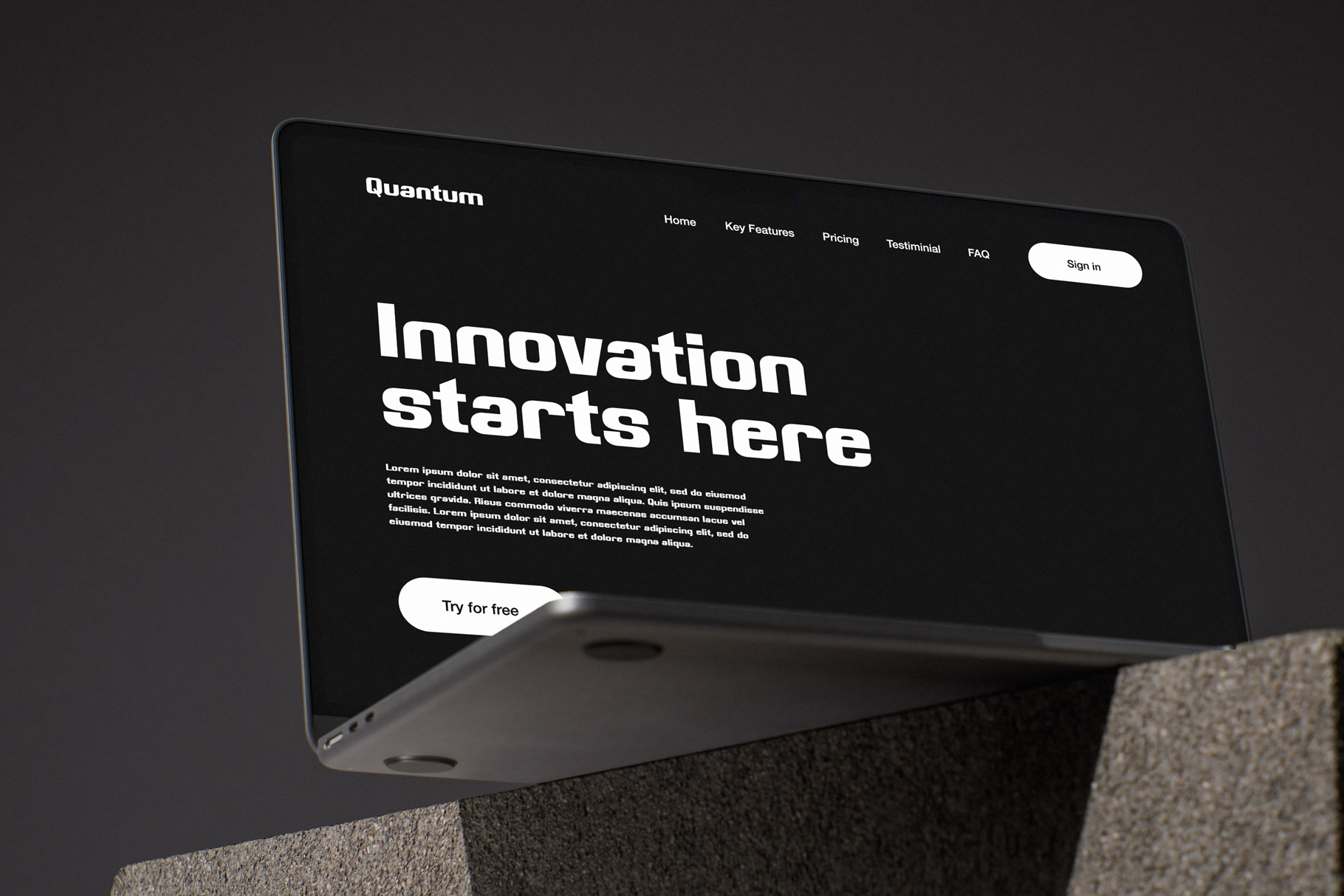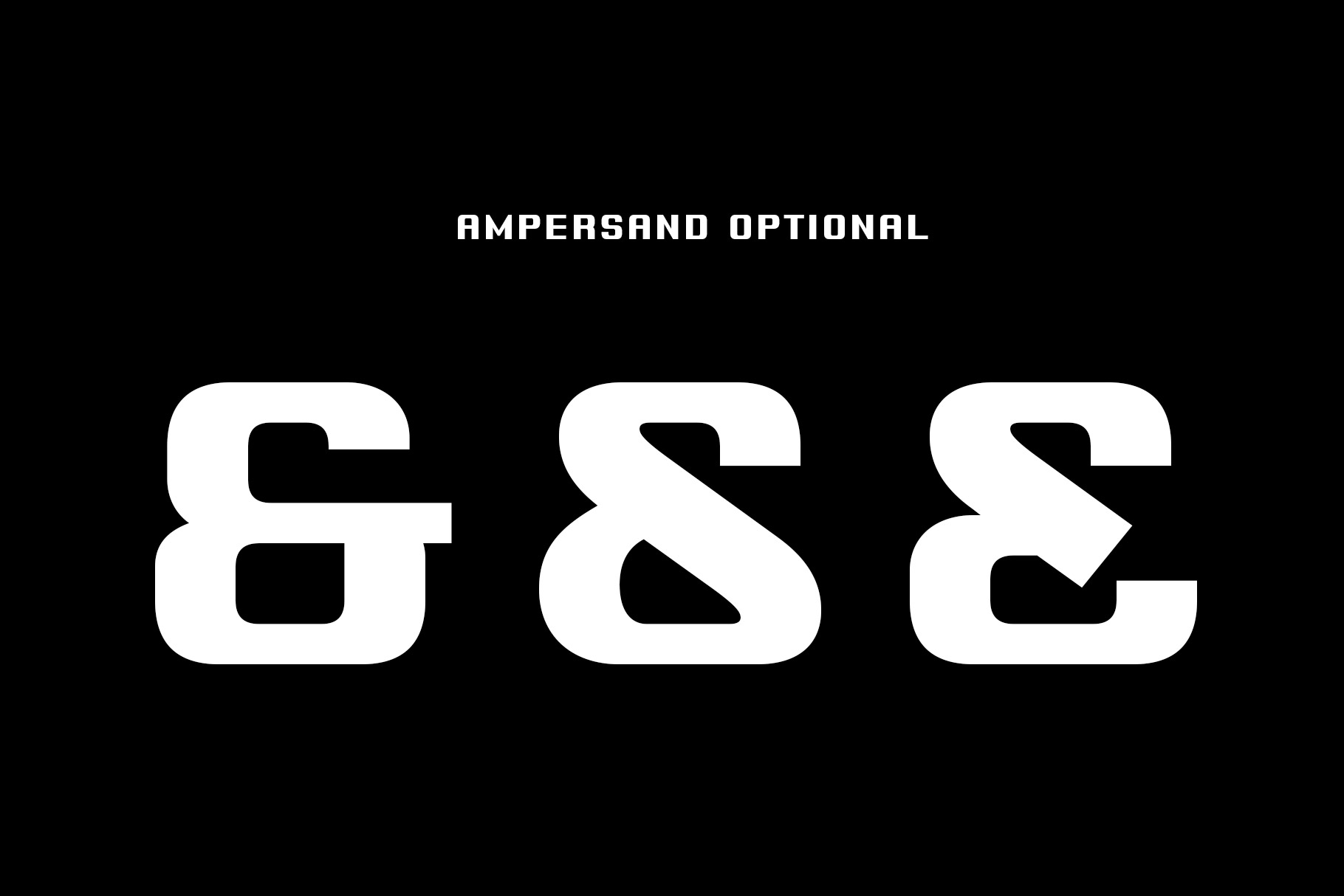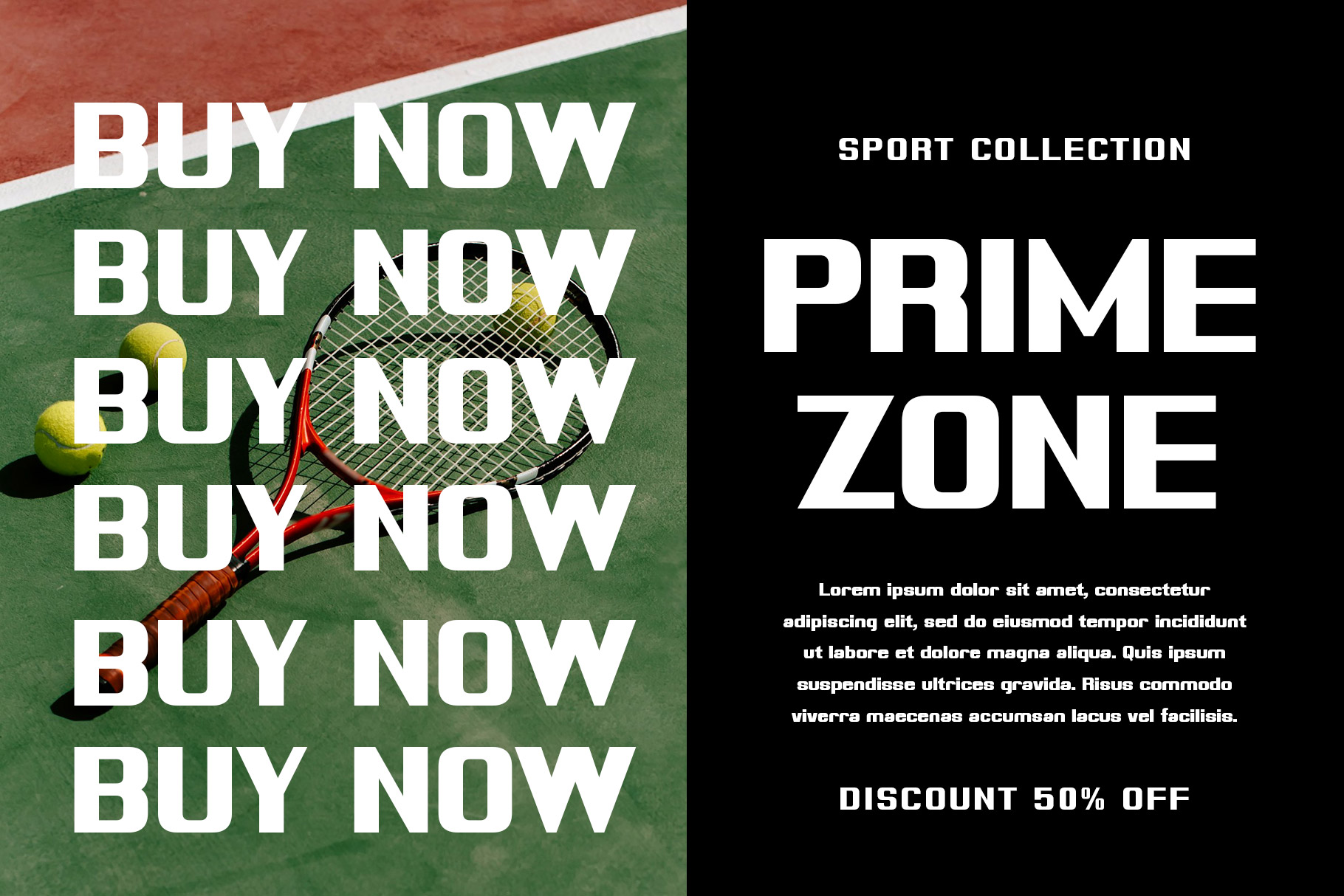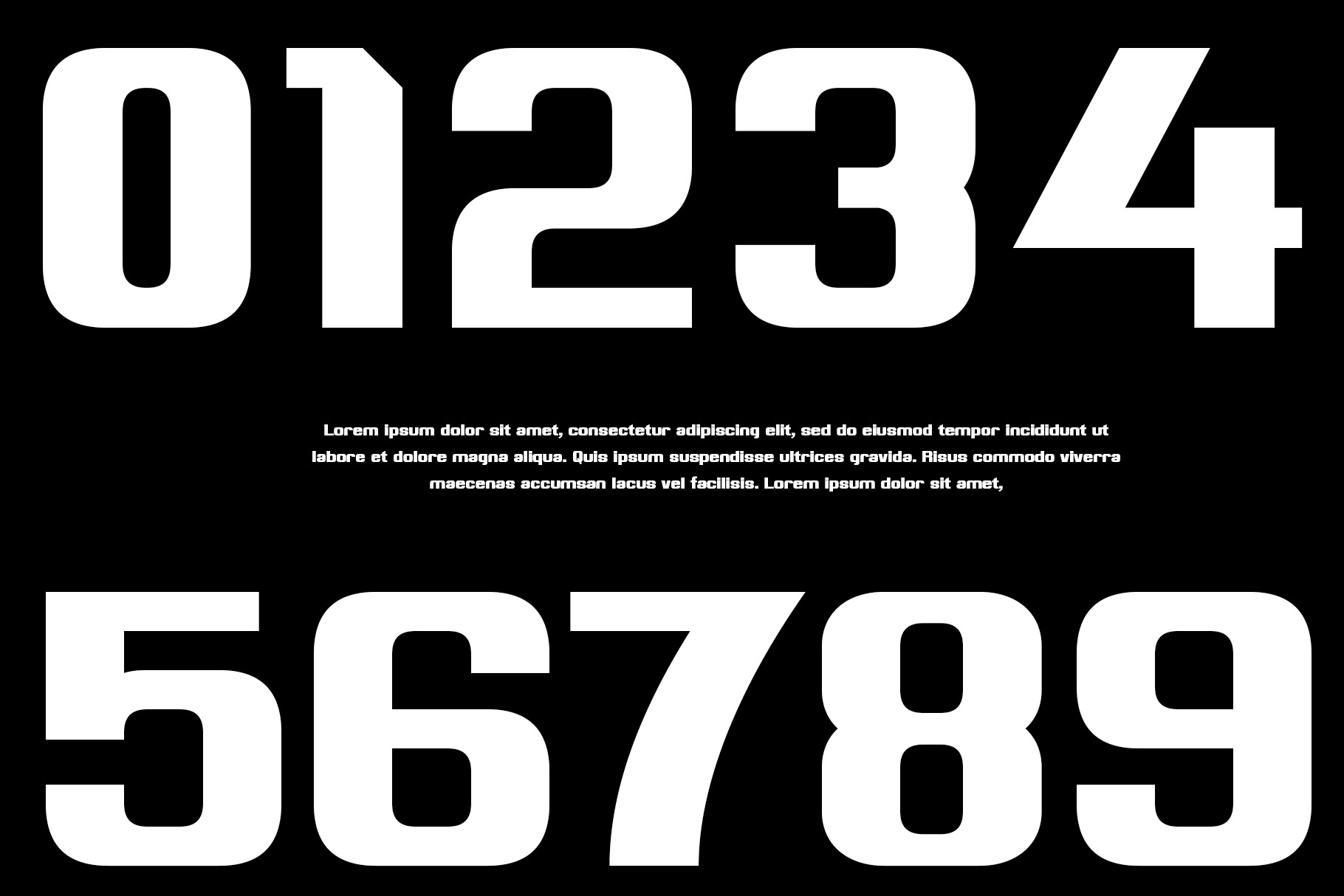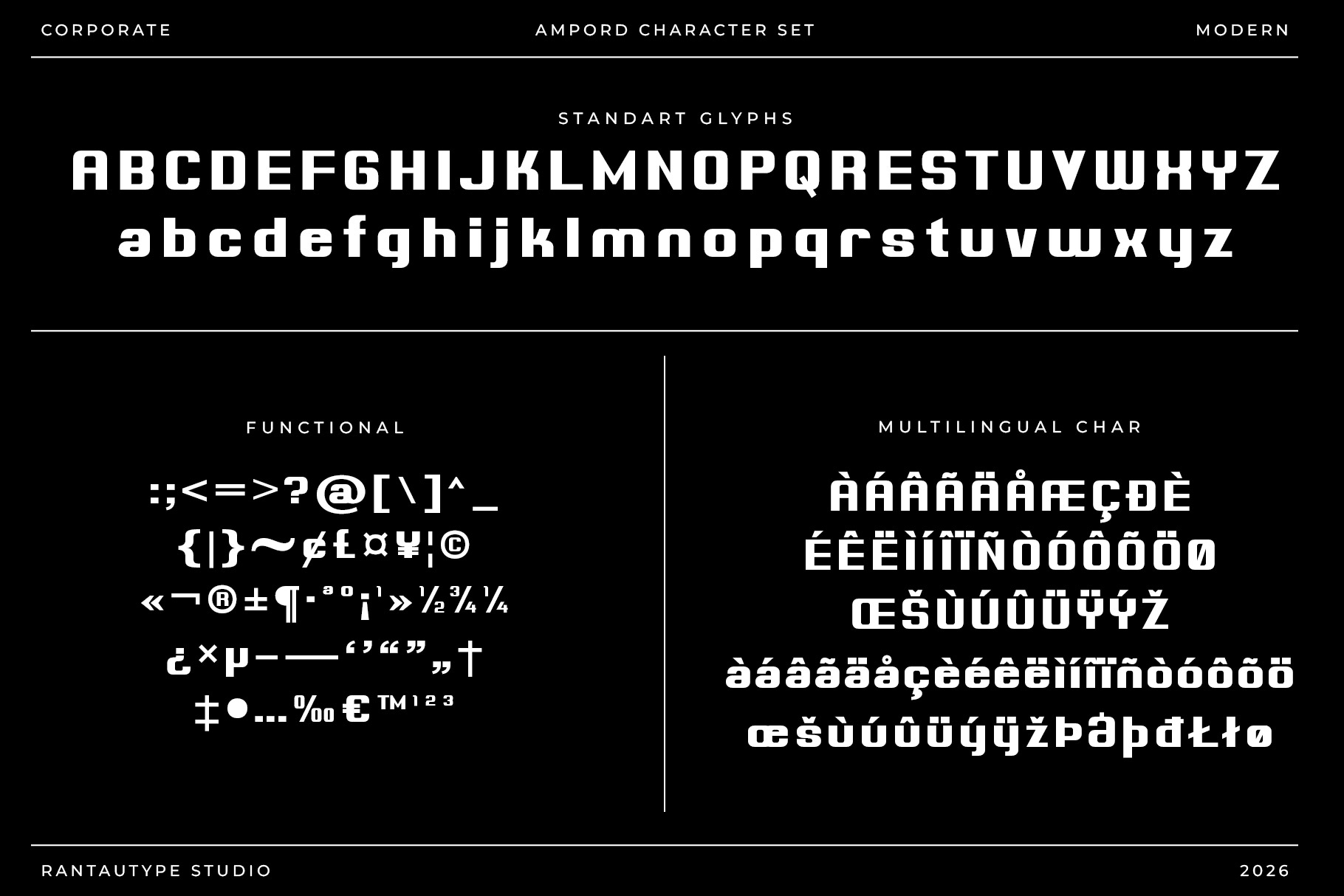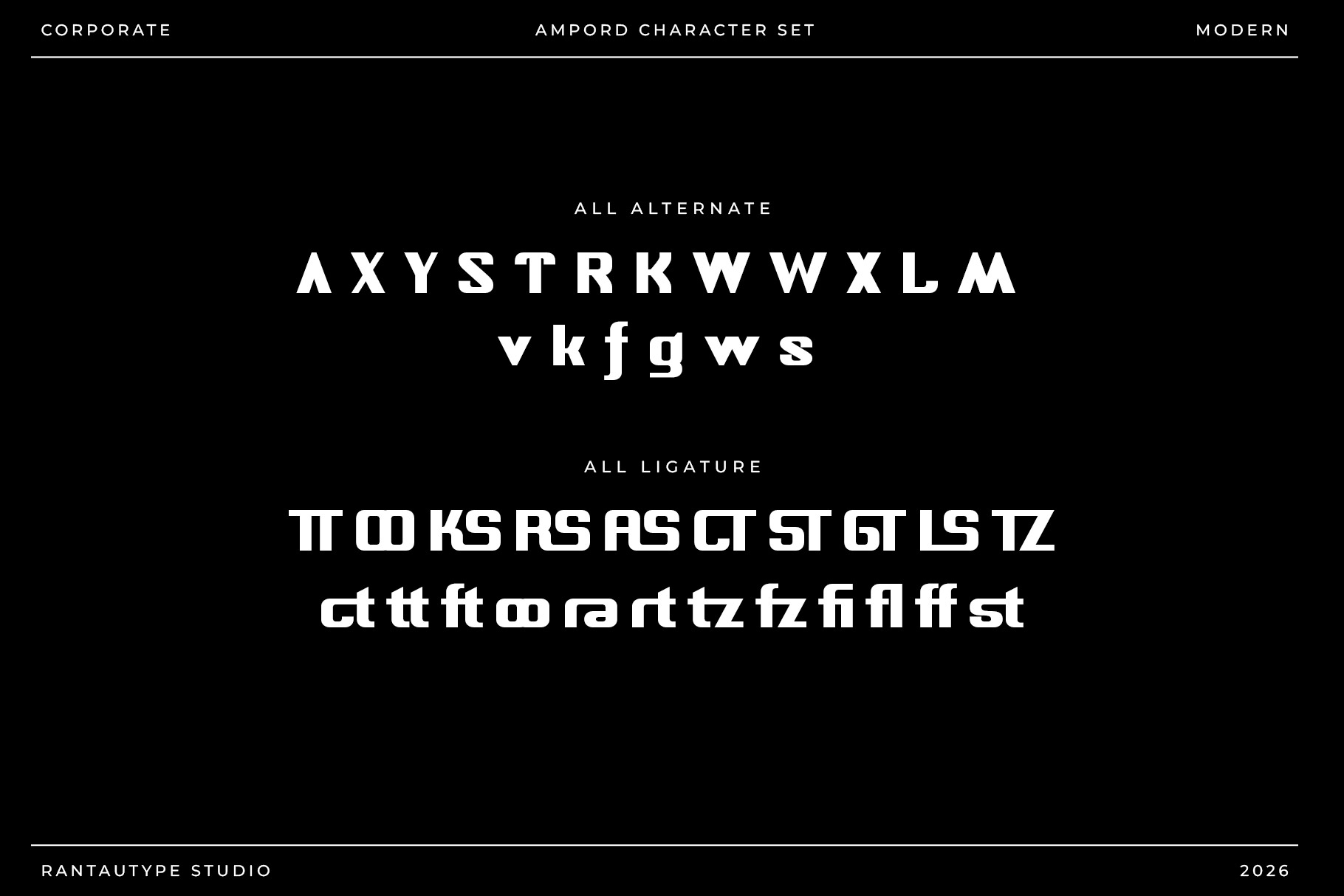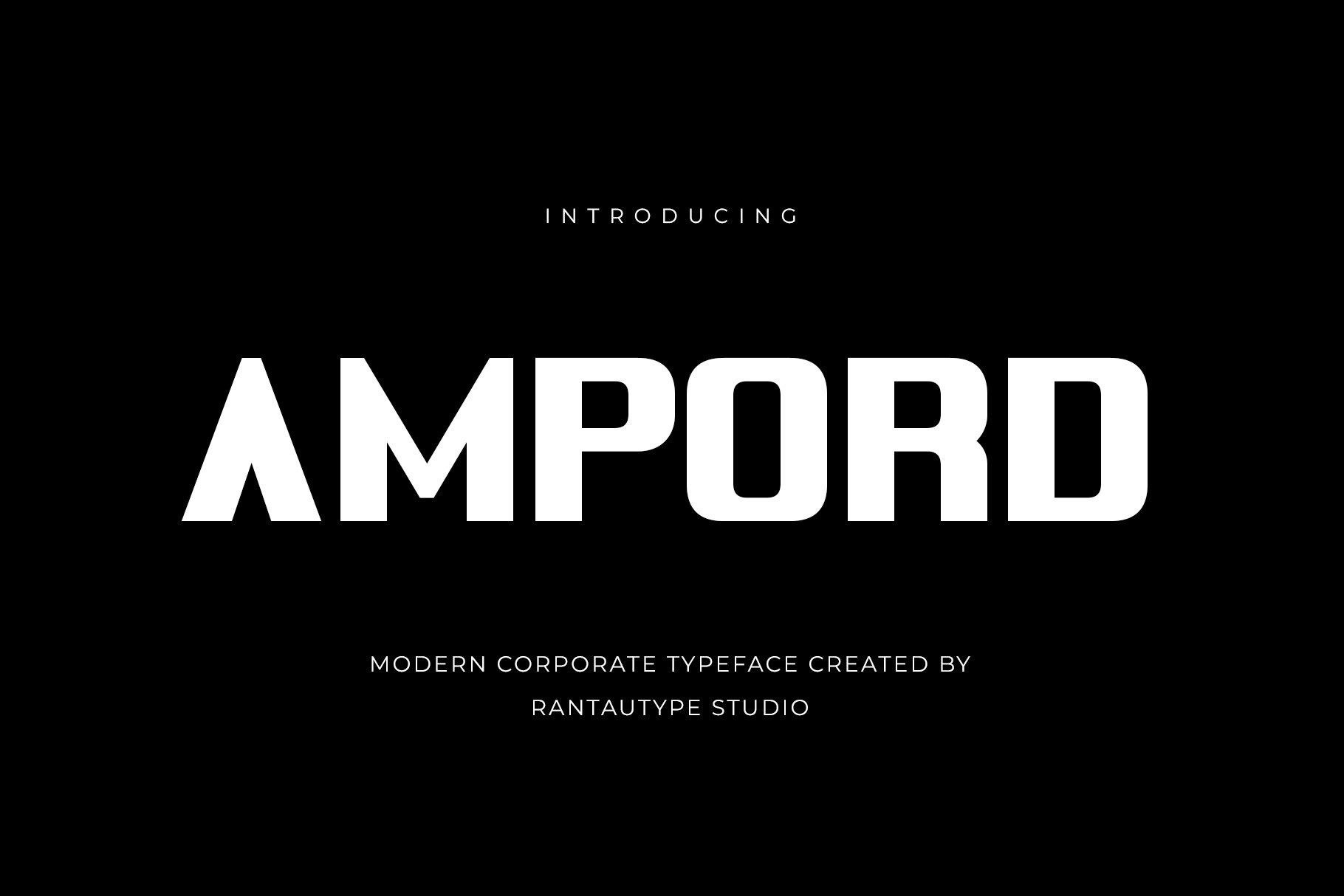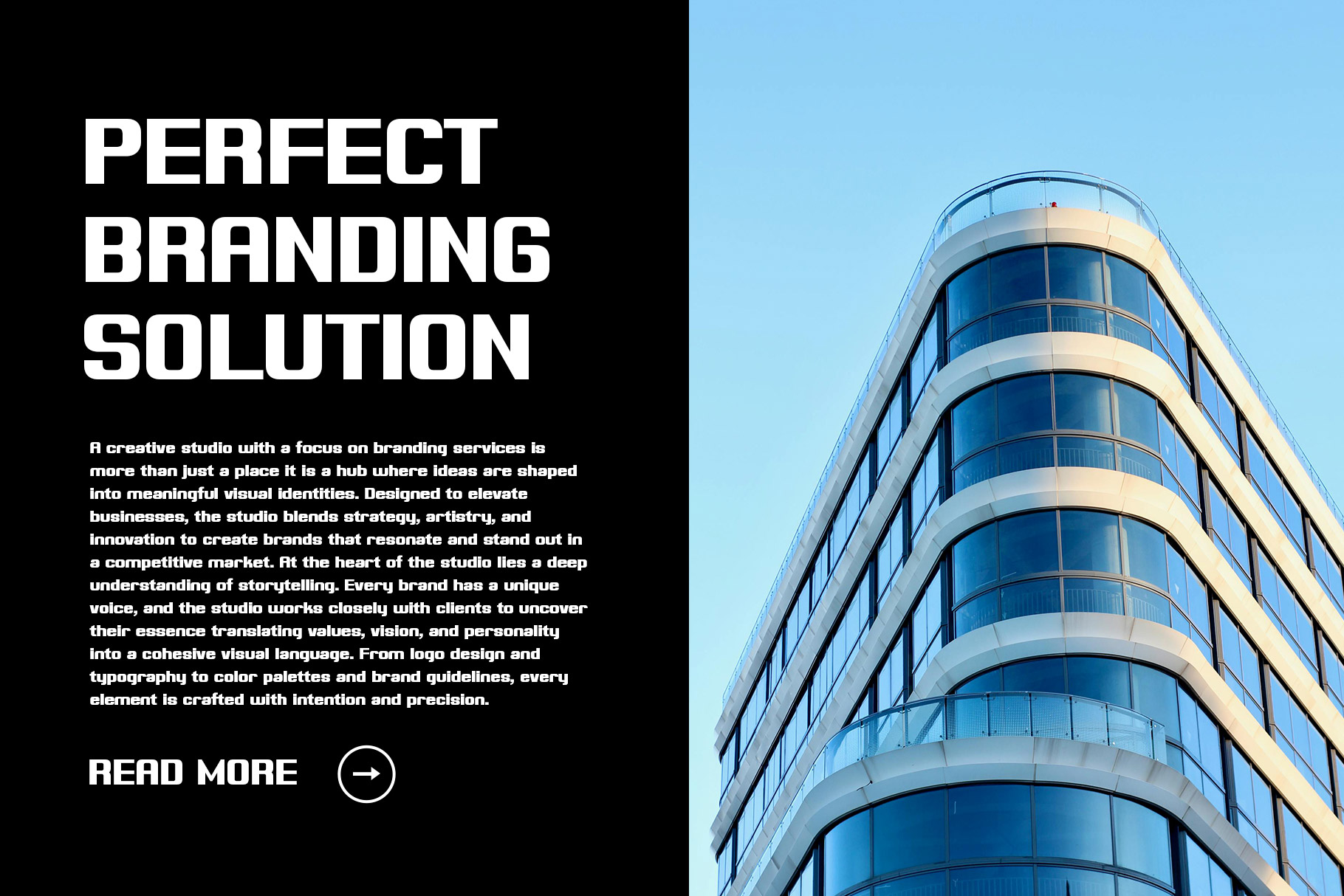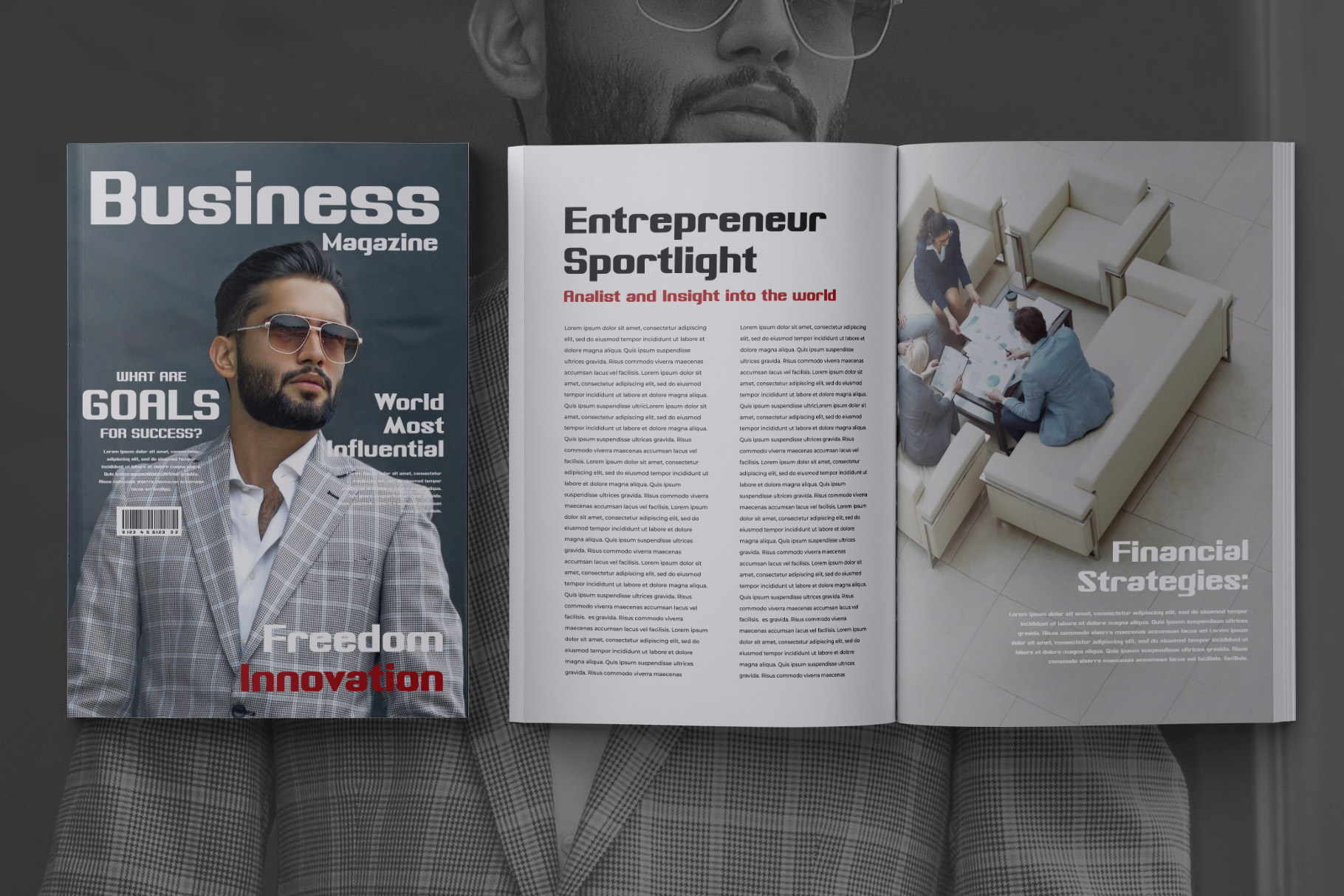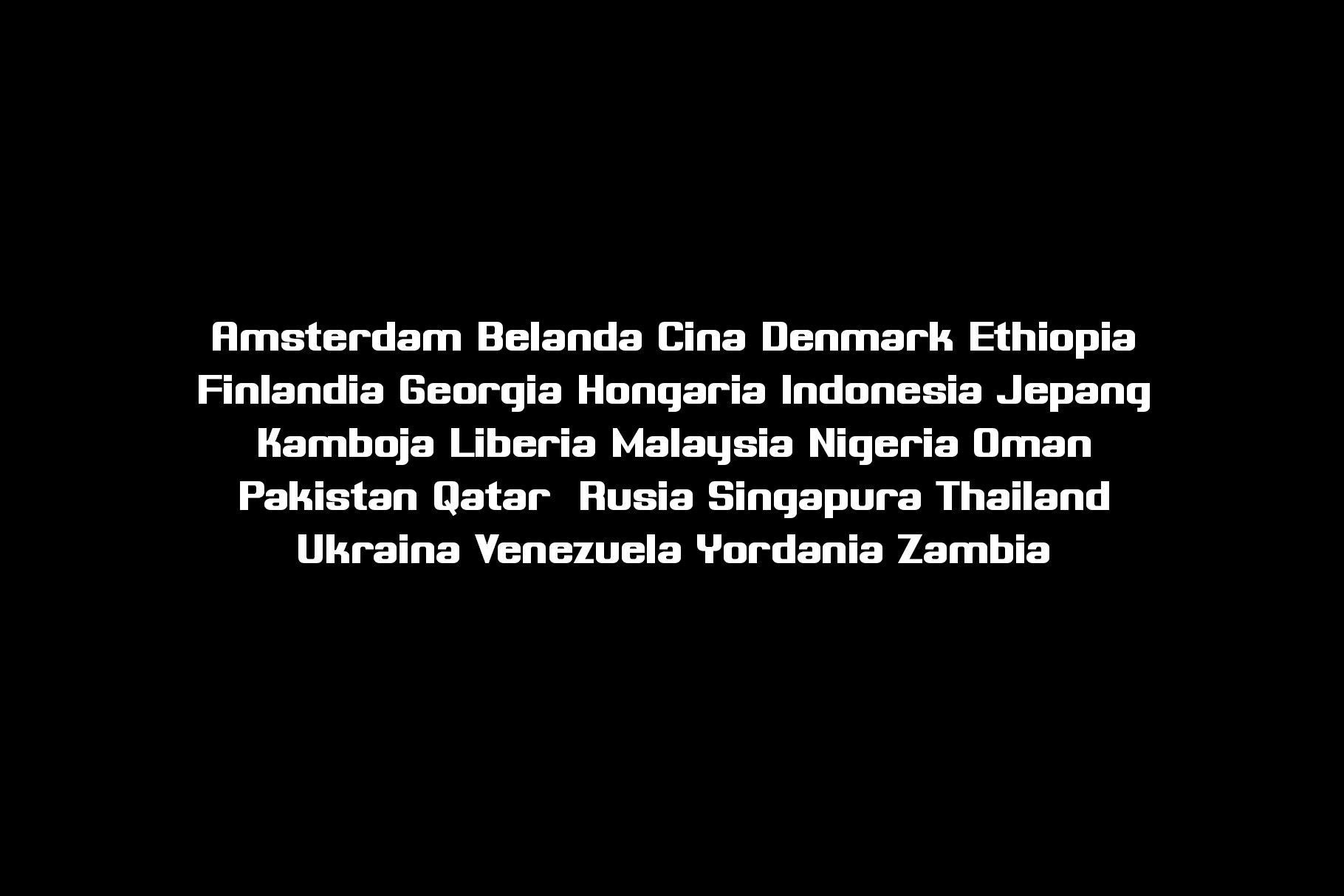
Ampord is a modern corporate sans serif typeface is designed to communicate professionalism, clarity, and trust—core values essential to any strong business identity. Carefully crafted for versatility, a corporate sans serif typeface performs effortlessly across a wide range of applications.
Ampord is a perfectly choice for any creative endeavor, creating, modern, lifestyle design such as logotype, title, cover, branding, invitations, wedding designs, display and magazine, social media posts, advertisements, printed quotes, product packaging, corporate brand, product designs, labels, photography, watermarks, special events and any other project with modern touch.